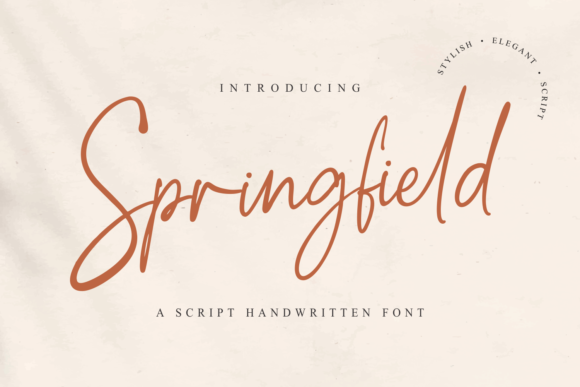
Introducing Springfield Font – A Signature Word Masterpiece
In a world of digital expression, where words hold immense power, Springfield Font emerges as a true artistic virtuoso. This exquisitely crafted script font family is a symphony of elegance and fluidity, designed to make your words dance off the screen with grace and charm.
Step into a realm of creative possibilities with Springfield Font, where your designs transcend the ordinary and embrace the extraordinary. From the delicate strokes of wedding invitations to the heartfelt sentiments of thank-you cards, Springfield Font adds a touch of refinement and sophistication that elevates your messages to new heights.
Visualize your quotes adorned with the sweeping curves and graceful flourishes of Springfield Font. Each letter, meticulously shaped by the hands of master typographers, carries the weight of emotion and the allure of timeless beauty. Whether it's a motivational quote to inspire your audience or a heartfelt message to warm their hearts, Springfield Font elevates your words into works of art.
Envision your greeting cards transformed into exquisite masterpieces that leave a lasting impression. With Springfield Font, every card becomes a testament to your thoughtfulness and care. Its flowing lines and intricate details add a personal touch that makes your greetings feel like warm embraces.
Unleash the potential of your logos and business cards with Springfield Font, and watch your brand identity soar to new heights. This font's innate elegance lends an air of professionalism and sophistication to your designs, making a statement that speaks volumes about your brand's values and aspirations.
Springfield Font is an open door to a world of creative expression, inviting you to explore the depths of your imagination and bring forth designs that capture hearts and spark conversations. Its PUA encoding ensures effortless access to a treasure trove of glyphs and swashes, empowering you to customize your creations with endless possibilities.